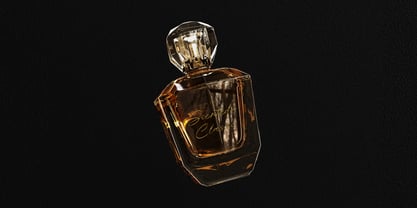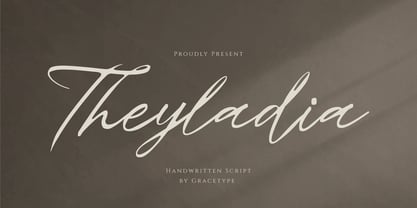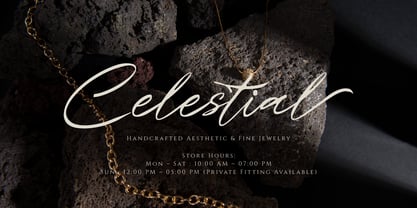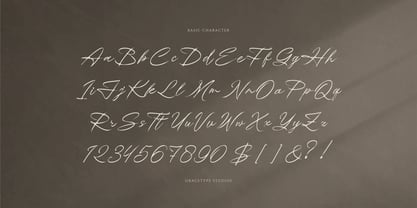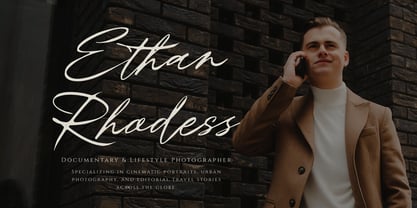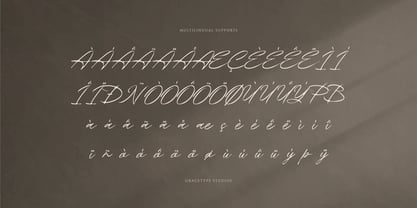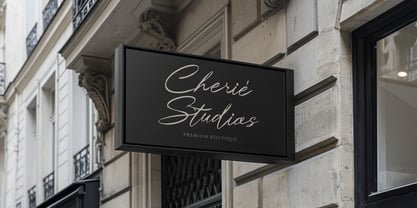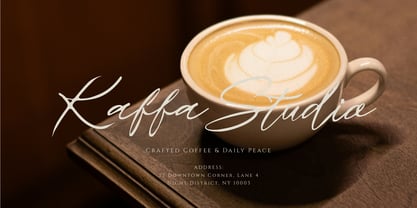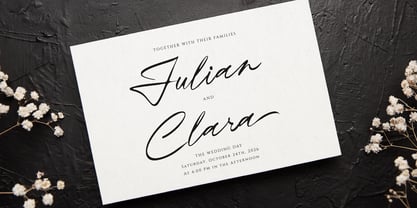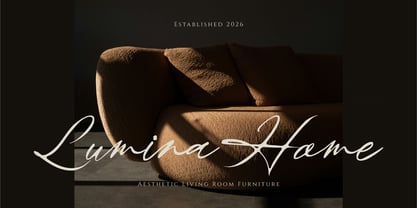
Theyladia
por Tini Fitriani
La familia tipográfica Theyladia y publicada por Tini Fitriani. Theyladia contiene 2 estilos y opciones de paquete familiar. Más información sobre esta familia
Theyladia | Handwritten Script, from Gracetypestudio, suitable for any projects such as: logos, branding projects, homeware designs, product packaging, mugs, quotes, posters, shopping bags, t-shirts, book covers, name card, invitation cards, greeting cards, label, photography, watermark, special events, and all your other lovely projects that need a Script taste.